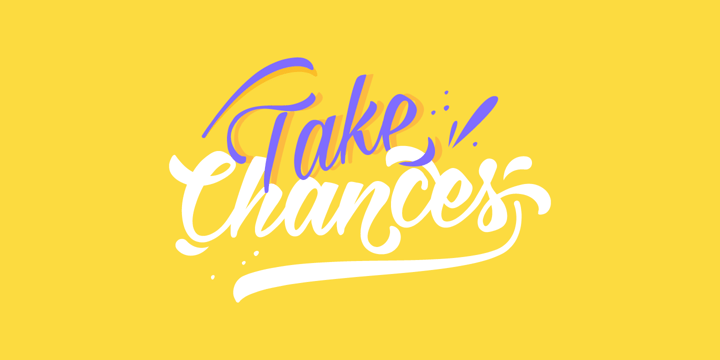
Milasian
Milasian by Mans Greback
Milasian Font Family was designed by Måns Grebäck and published by Mans Greback. Milasian contains 6 styles and family package options. More about this family
About Milasian Font Family
Milasian, an elegant typeface developed by Måns Grebäck. Milasian is a flowing, casual script typeface, with a rich, inky composition, and a tad of a feminine vibe. It is advanced, soft, and enthusiastic. Milasian contains a supporting, vast range of ligatures and glyphs for a practical, hand-lettered look. Additionally, this font gives way to a world of possibility with its contextual alternates, swash versions of every single letter and an amazing set of swashes to add to the ends of your words to give a great aesthetic! This font has the potential to move smoothly across your projects with its simple, impact effect, bringing you higher element of potential. Milasian will remind you and those who gaze upon it that beauty is everywhere, even in the simplest of forms. Also check out Milasian Circa, a more round version of this typeface.
About Mans Greback
Måns Grebäck is a type designer and font creator specializing in script typography, but with a portfolio containing a vast selection of styles. Typefaces from Måns Grebäck are commonly used as company and product logotypes, as well as headlines and in advertisement by a wide range of industries world-wide. Founded by Måns Grebäck in 2010, Mans Greback AB originally went under the name of Mawns Fonts and later Aring Typeface AB. Måns Grebäck is currently based in Örebro, Sweden. (See Creative Characters interview)